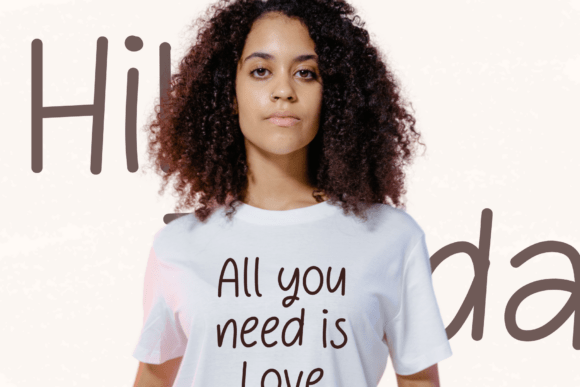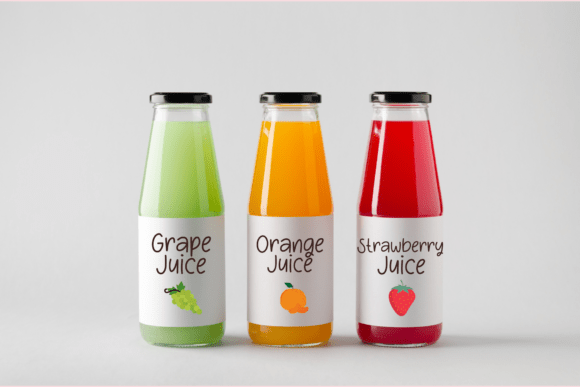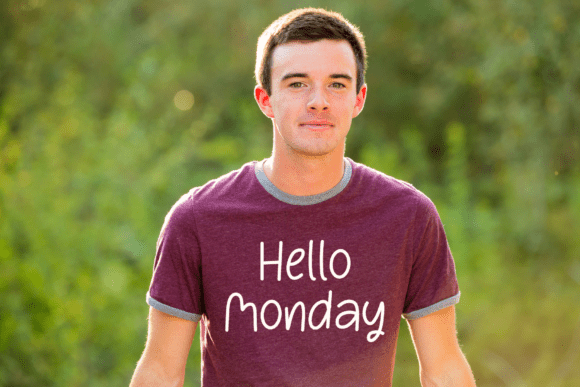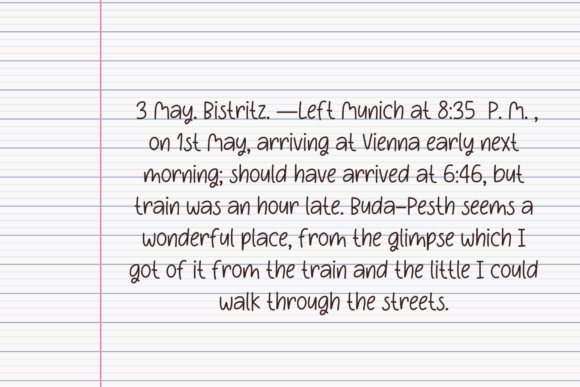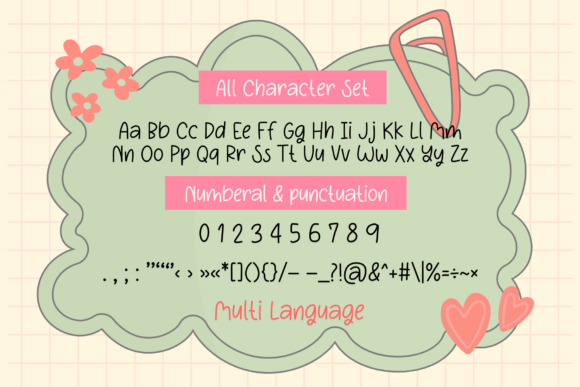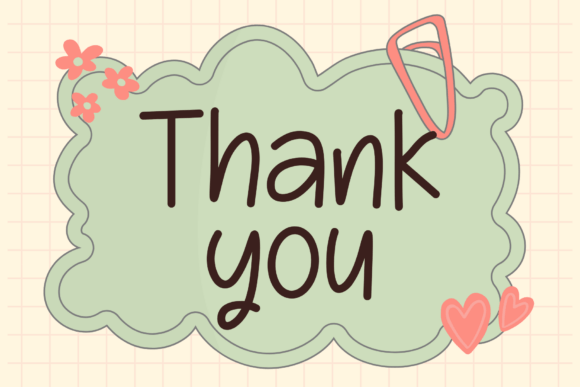
Introduction to Simple Memo Font
Simple Memo is a handwritten font.
It embodies playfulness and authenticity and is the perfect choice for all your favorite projects, or even for blog posts, logos, branding, ads, invitations, greeting cards, planners, photo albums, decorations, and much more Add it to any of your designs, and enjoy the results.
Key Features of Simple Memo Font
Why Choose Simple Memo Font?
Simple Memo Font offers exceptional quality and versatility, making it a valuable addition to your design toolkit. Whether you’re creating for personal projects or commercial use, Simple Memo Font delivers professional results.